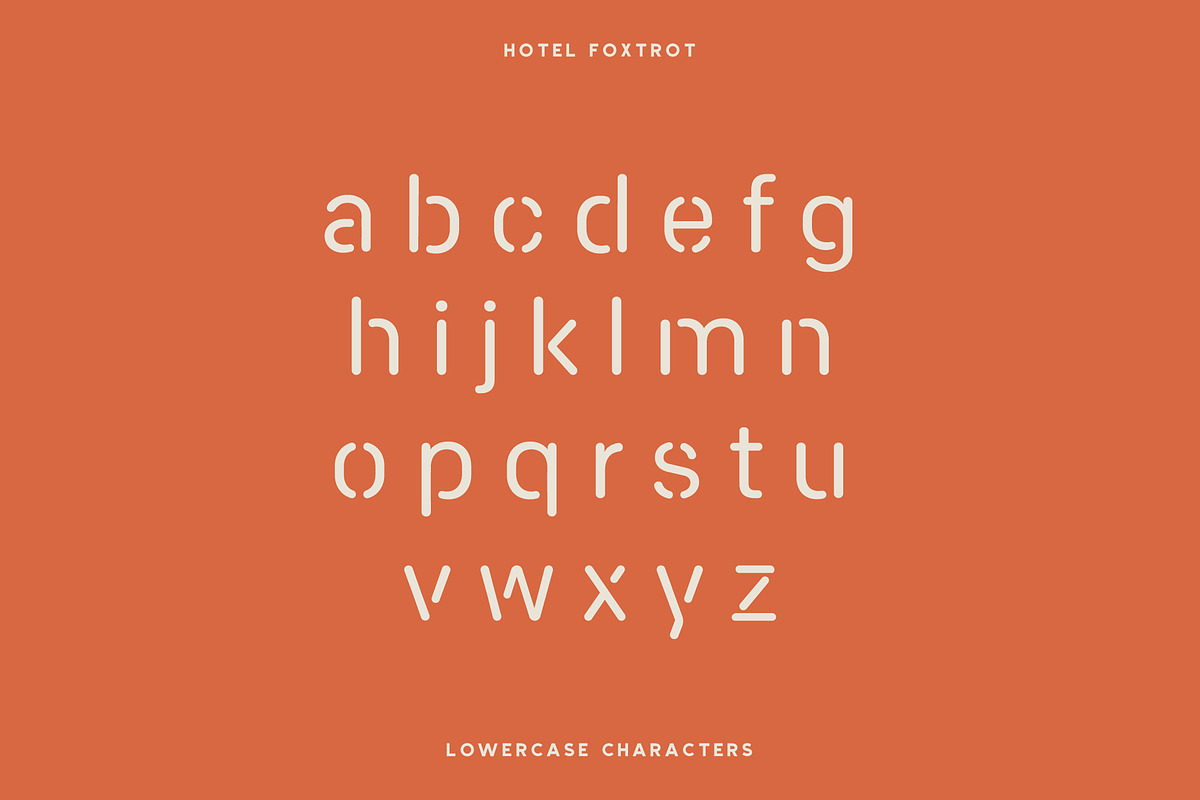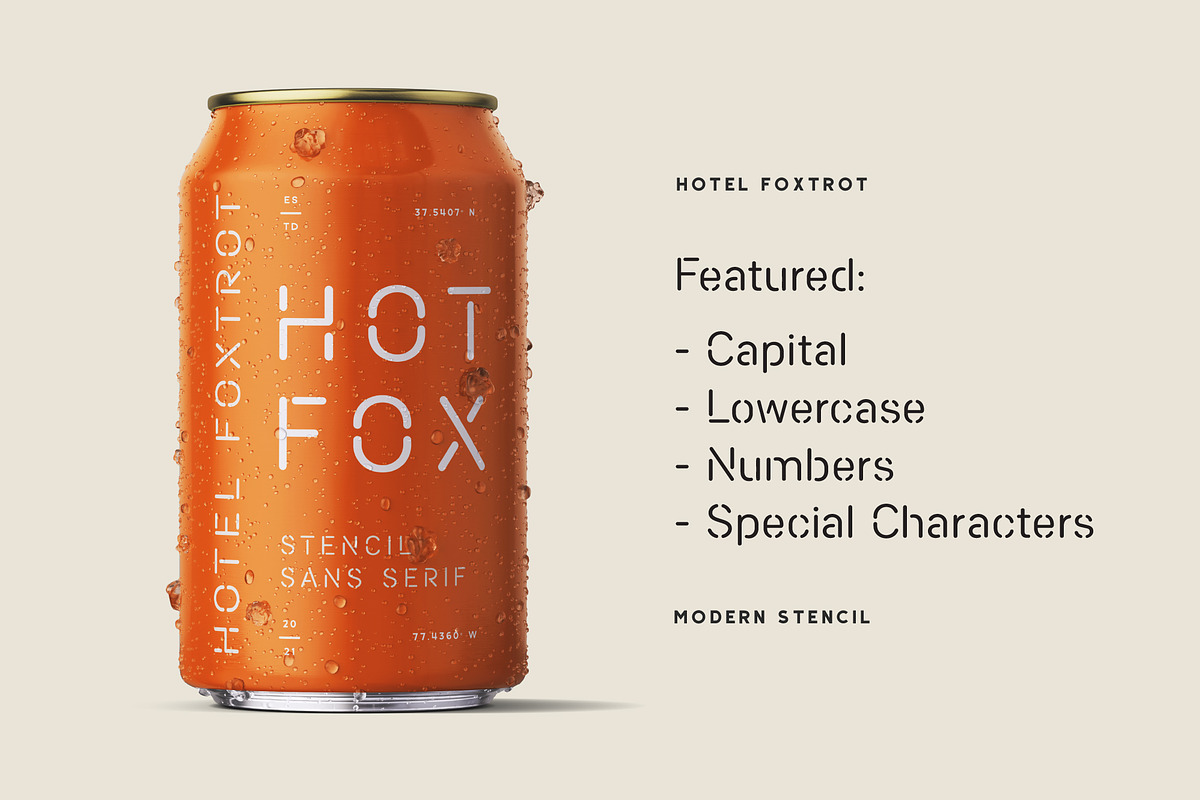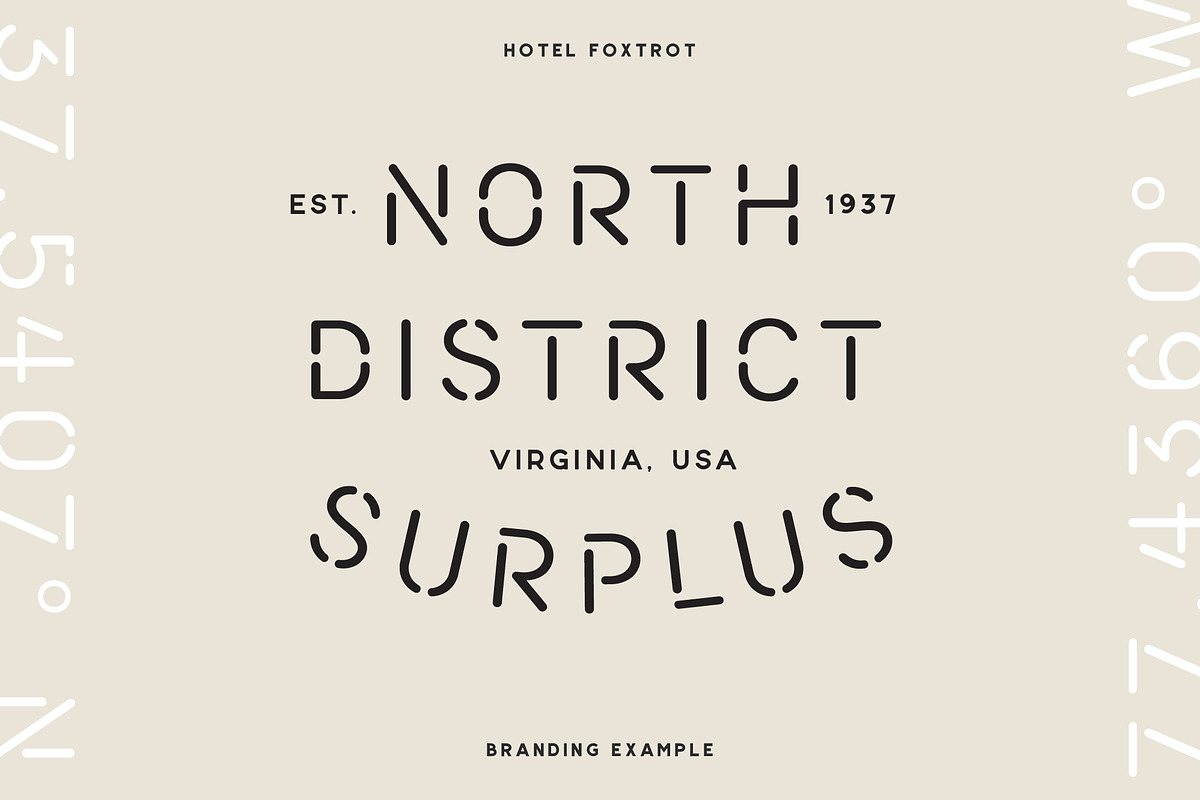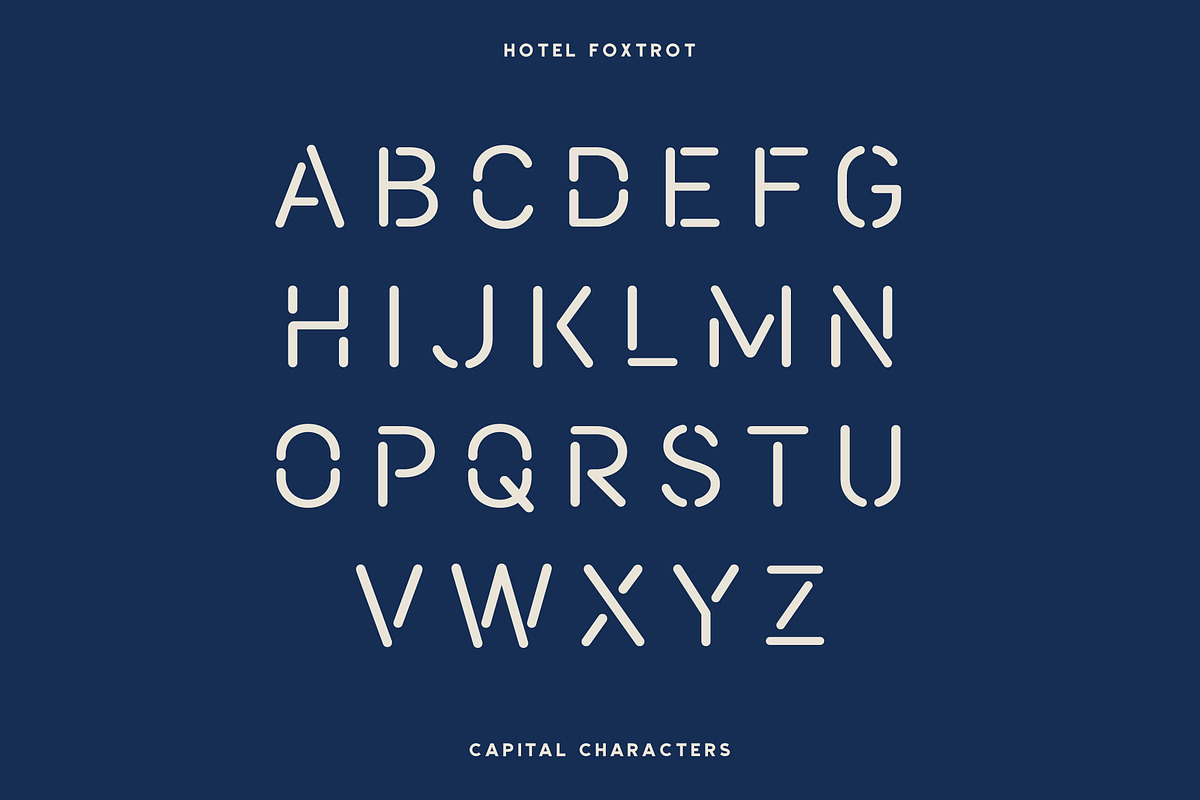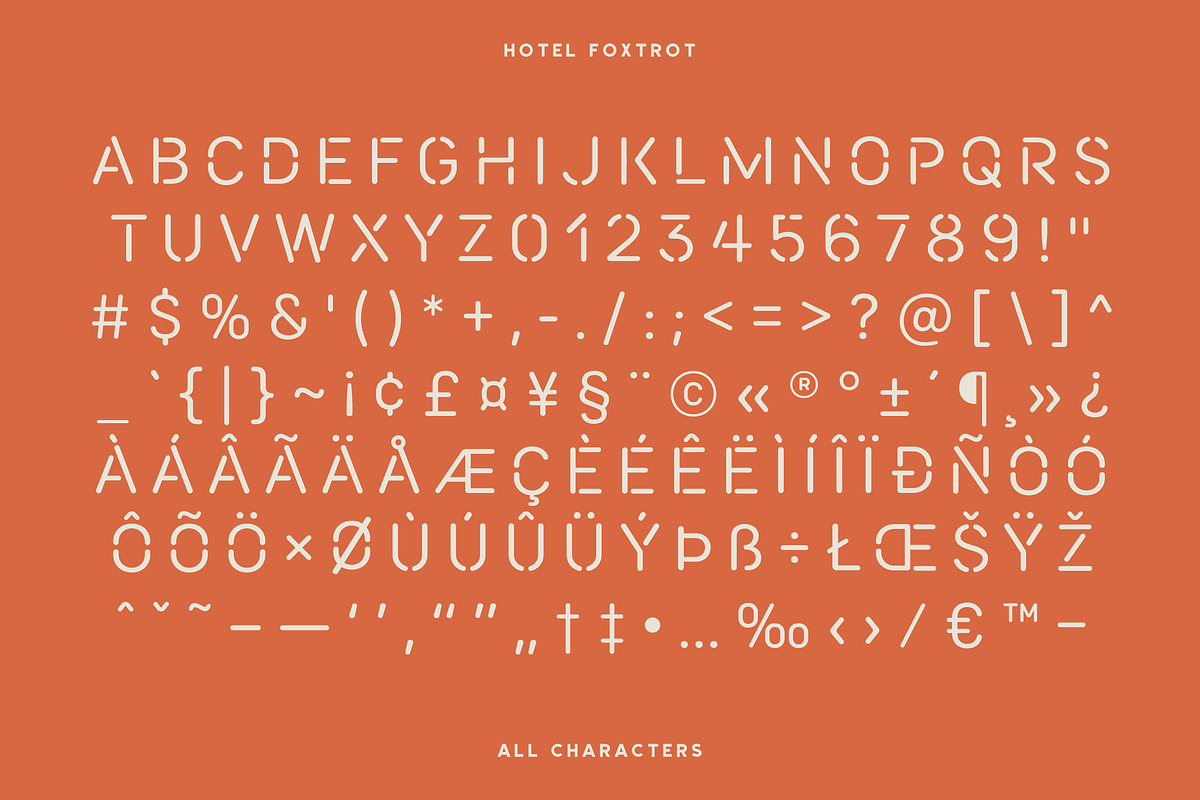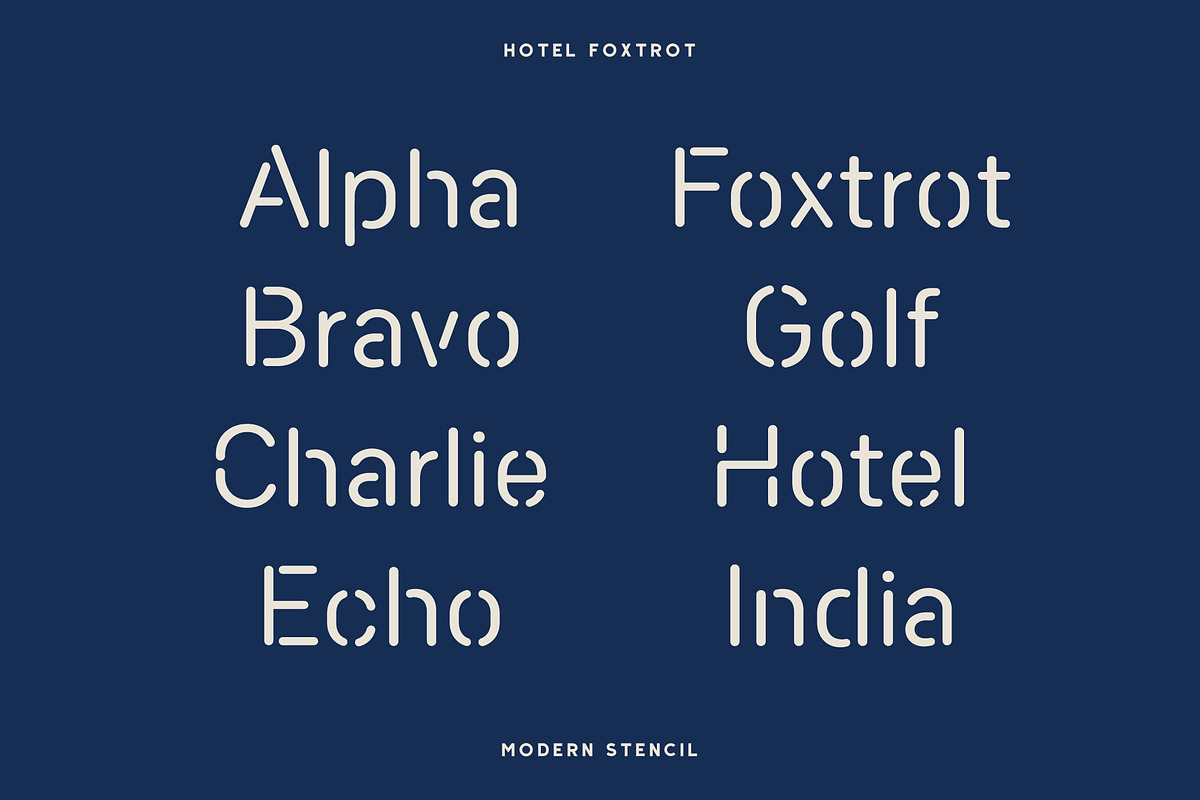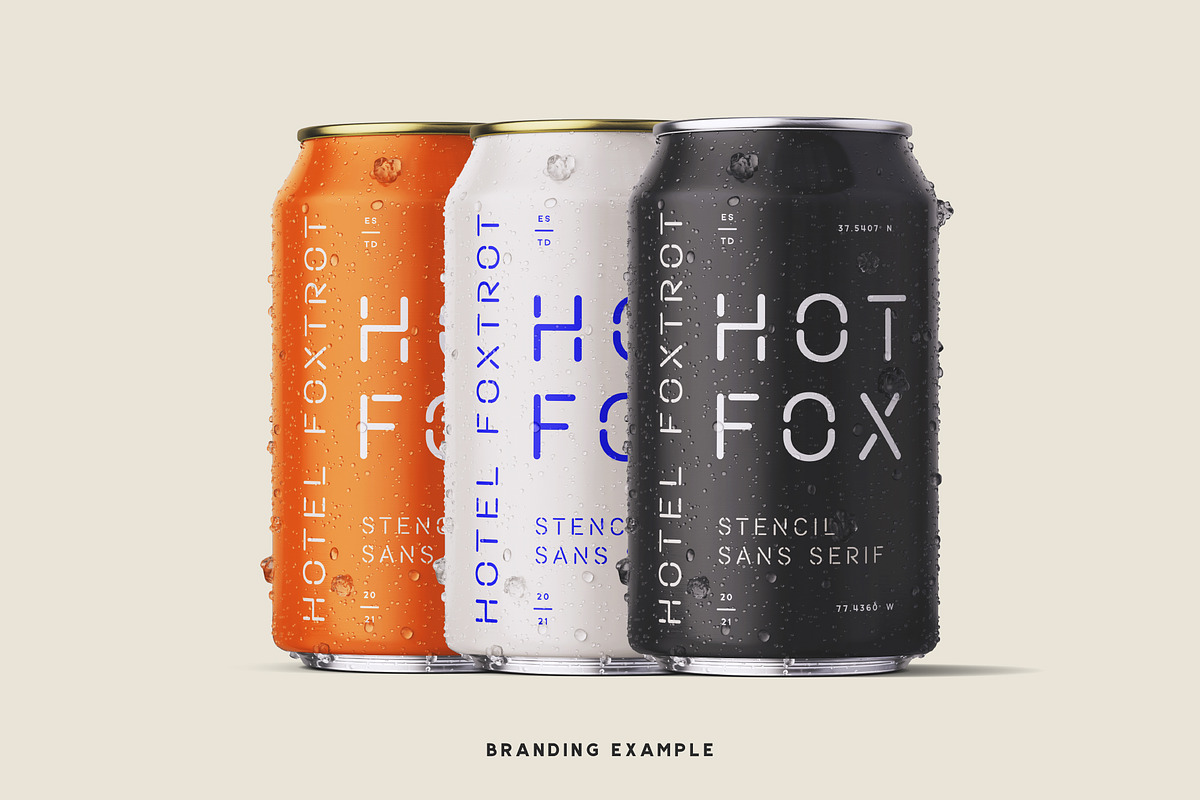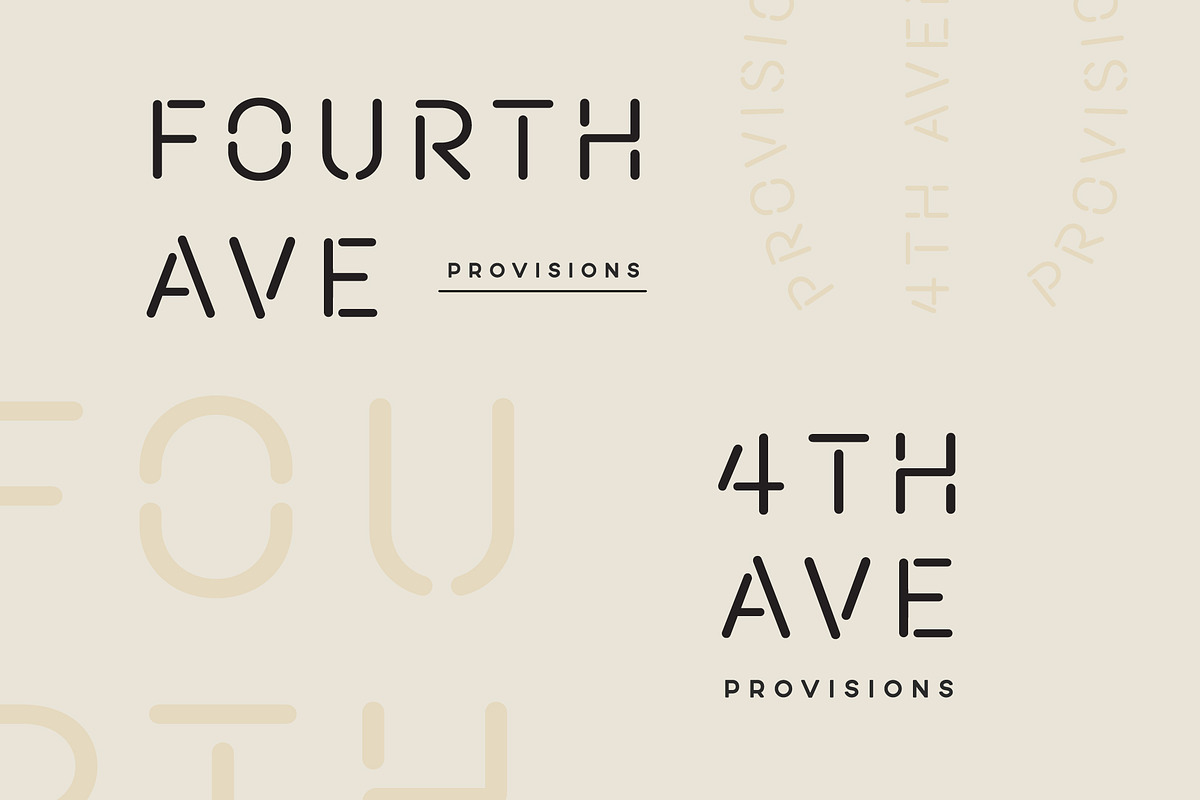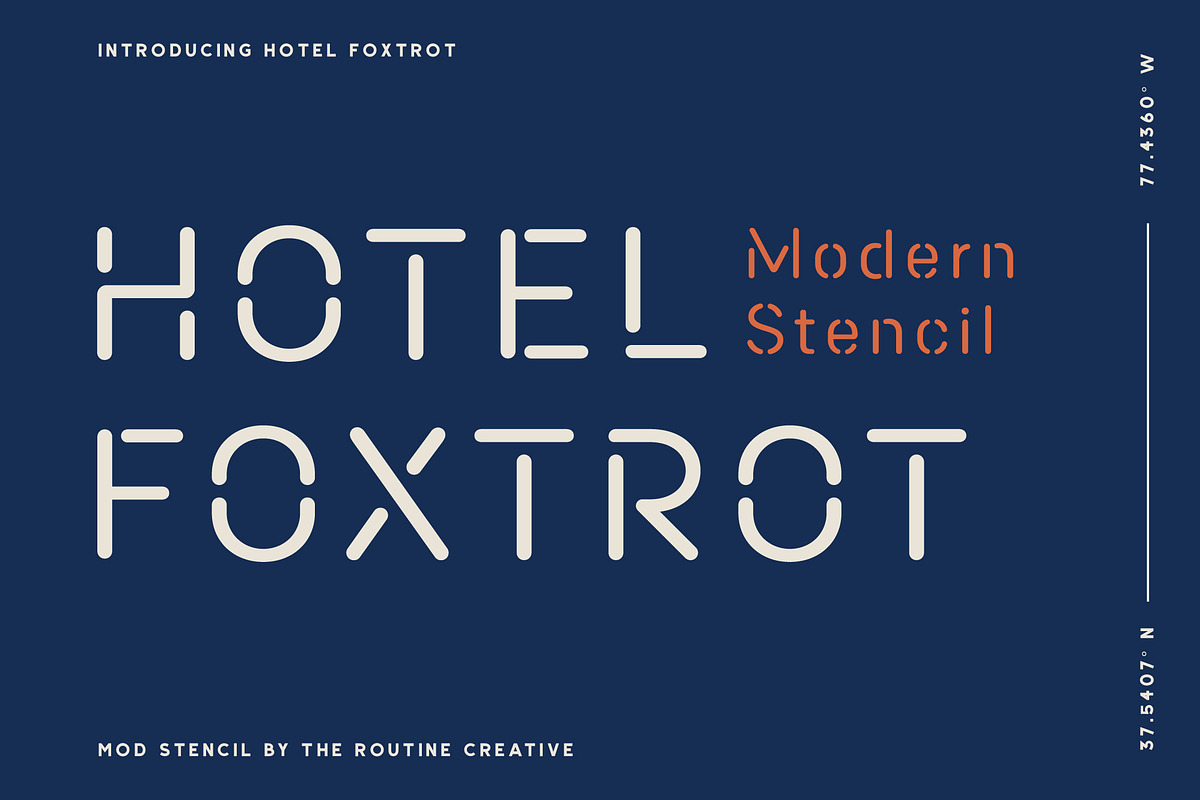
Hotel Foxtrot - Modern Stencil
Hotel Foxtrot is a modern stencil font. Its rounded edges and unique cutouts give it a unique feel that works for futuristic design as well as vintage applications. Its fun to work with and is perfect for branding, packaging, heading fonts, and posters, but really works well for all purposes. So, snag Hotel Foxtrot and get creative!
- Lowercase Characters
- Uppercase Characters
- Special Characters